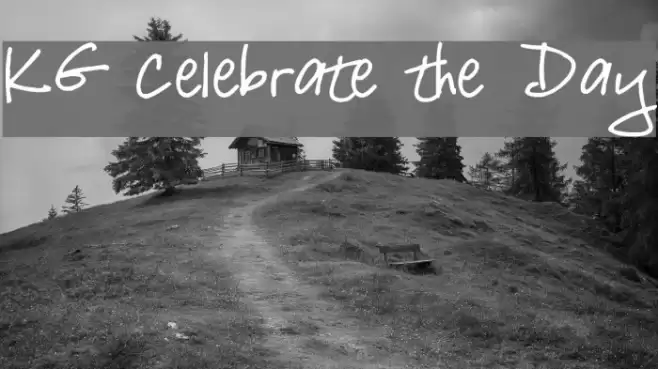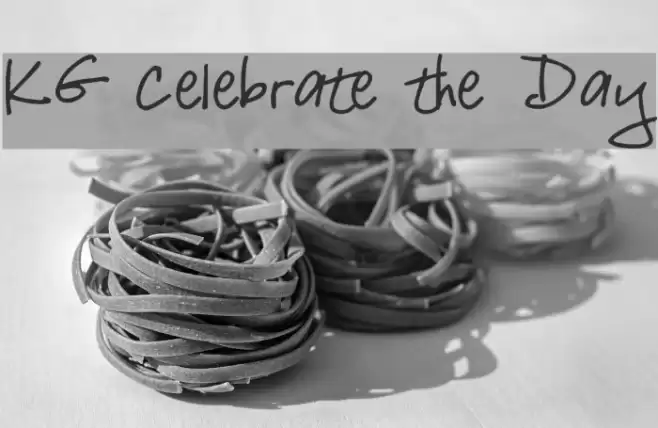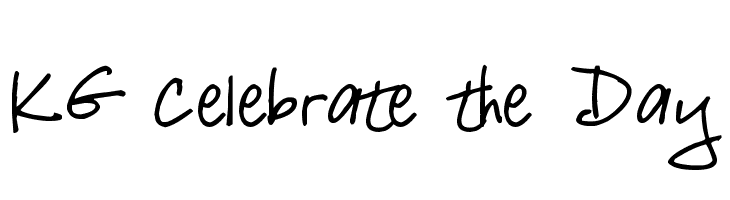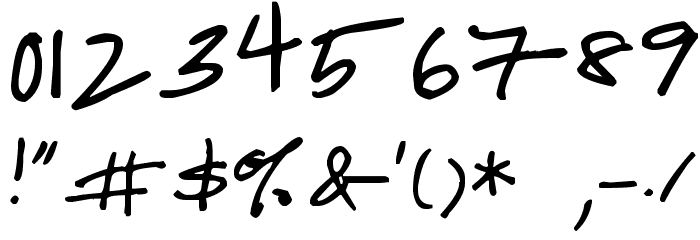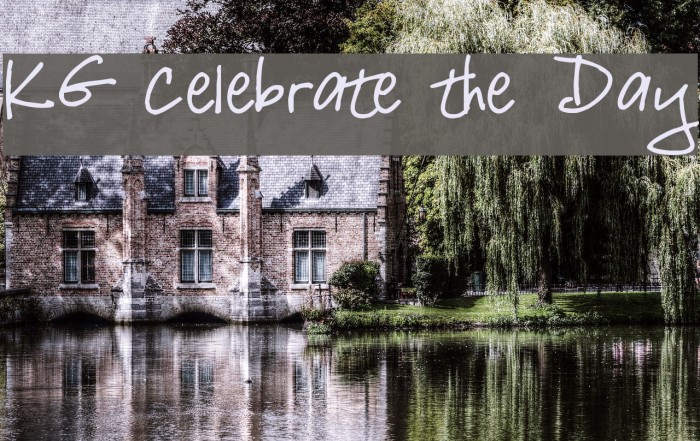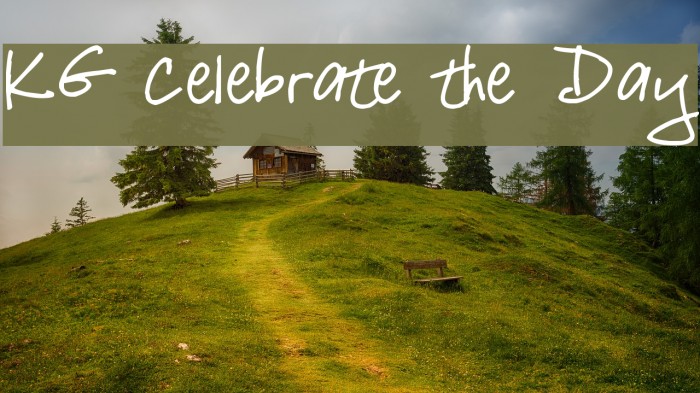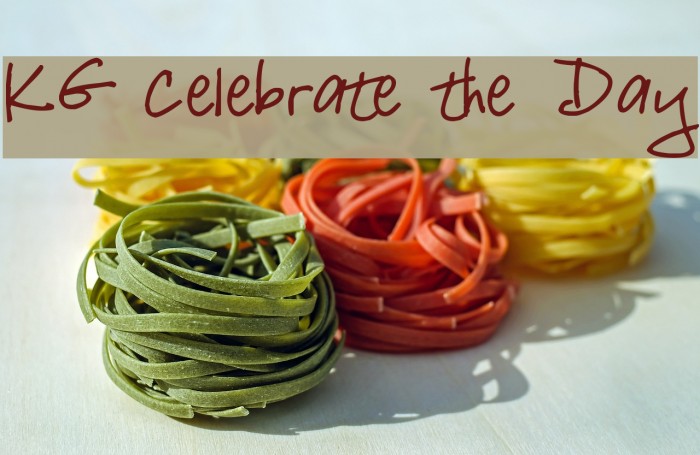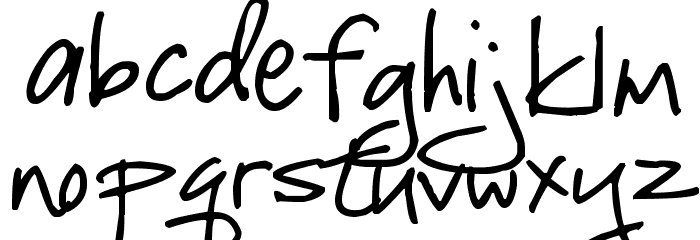
KG Celebrate the Day Font
KG Celebrate the Day Description
This font exudes a playful and energetic vibe, characterized by its handwritten style that mimics the fluidity and spontaneity of natural handwriting. The letters are slightly slanted, adding a dynamic feel, while the strokes vary in thickness, providing a lively contrast. The uppercase and lowercase letters maintain a consistent style, with some letters featuring unique flourishes that enhance the font's whimsical nature. Numbers and special characters are crafted with the same attention to detail, ensuring a cohesive look across all elements. This font is perfect for projects that require a personal touch, such as greeting cards, invitations, or playful branding.
A playful, handwritten font with dynamic strokes and whimsical flourishes from Uncategorized fonts.
- Proposed Projects: Ideal for greeting cards, invitations, playful branding, and personal projects.
- Overall Style: Playful, Energetic, Whimsical
- Use Case: Headlines, Logos, Invitations